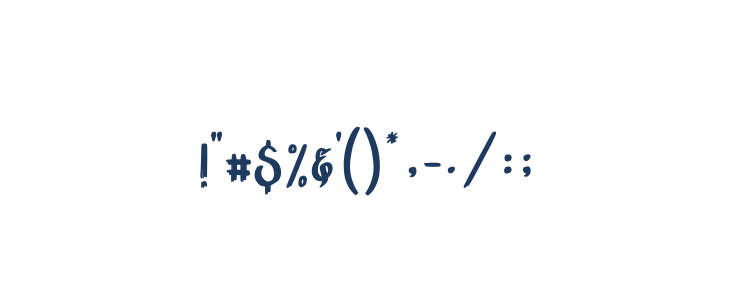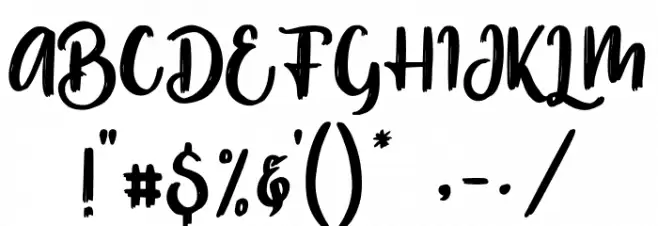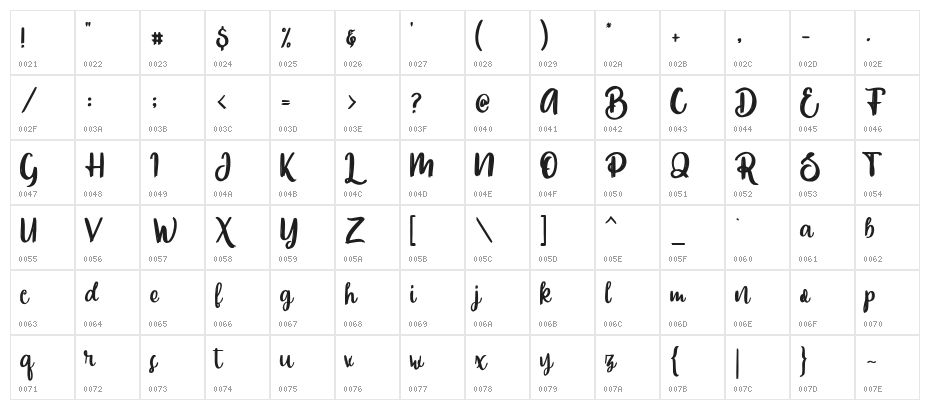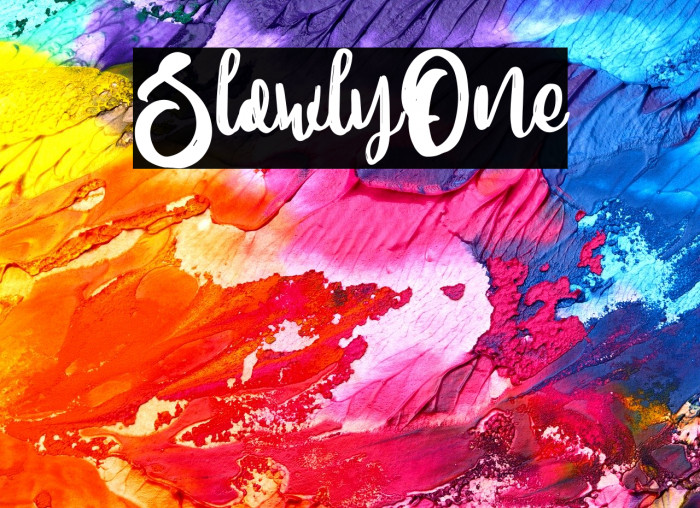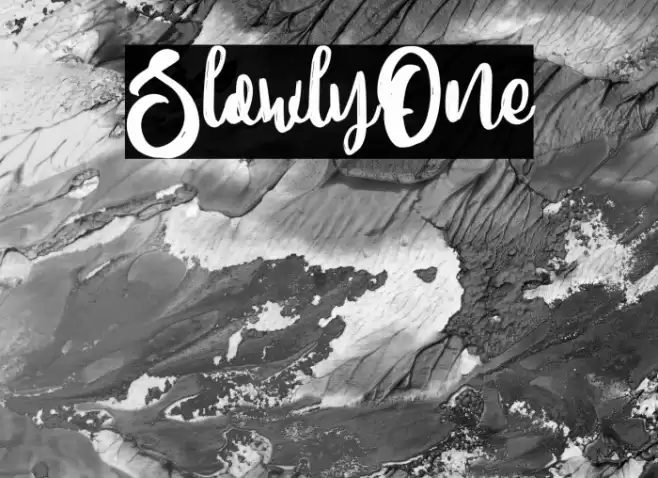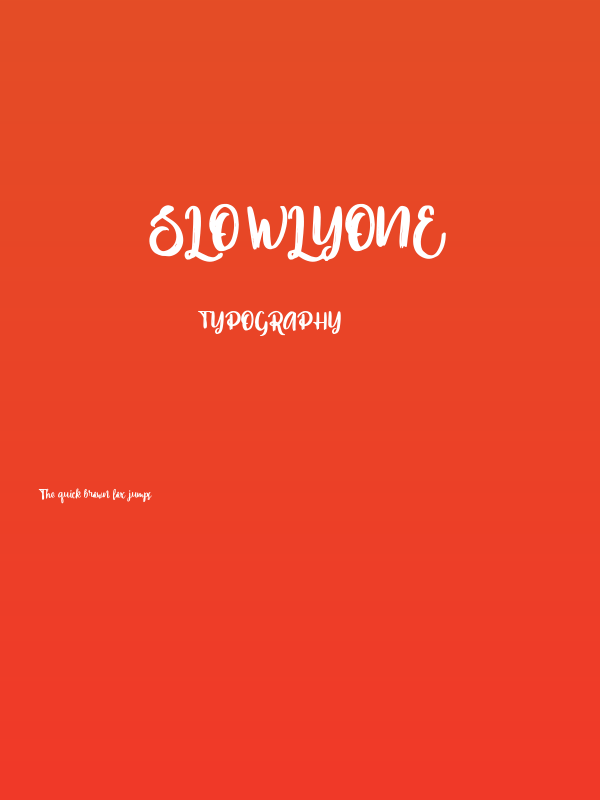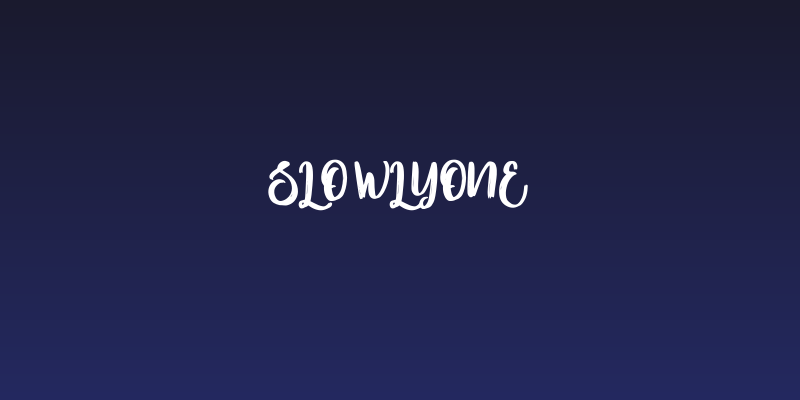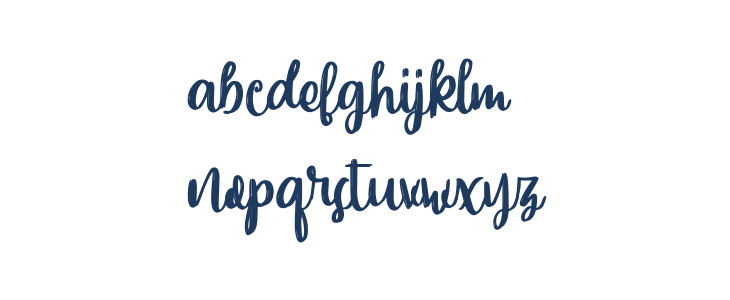
SlowlyOne Font
SlowlyOne Description
This font features a bold, expressive script style with a handwritten feel. The letters are fluid and dynamic, with a playful yet elegant appearance. The uppercase characters are slightly larger and more pronounced, while the lowercase letters maintain a consistent flow. The strokes are thick and have a high contrast, giving the font a strong visual impact. The special characters are designed to match the overall style, adding versatility to its use. This font is ideal for projects that require a personal touch or a creative flair.
| Proposed Projects | Ideal for branding, invitations, greeting cards, and social media graphics. |